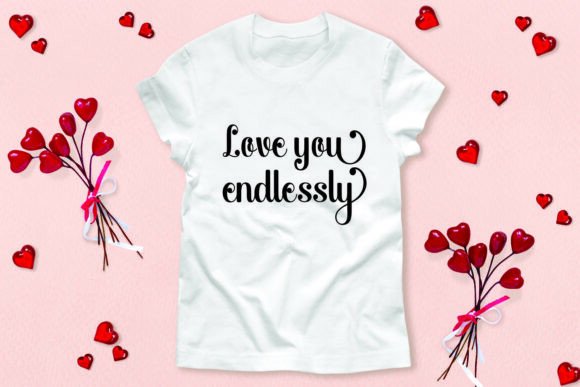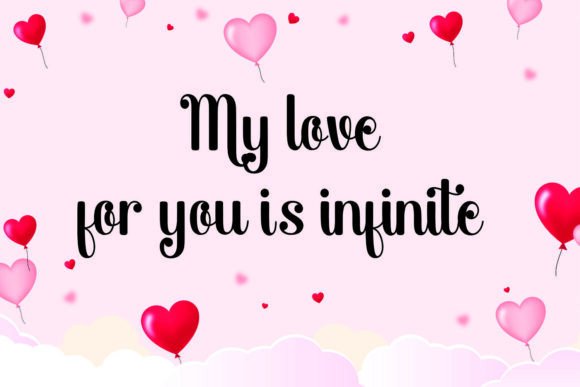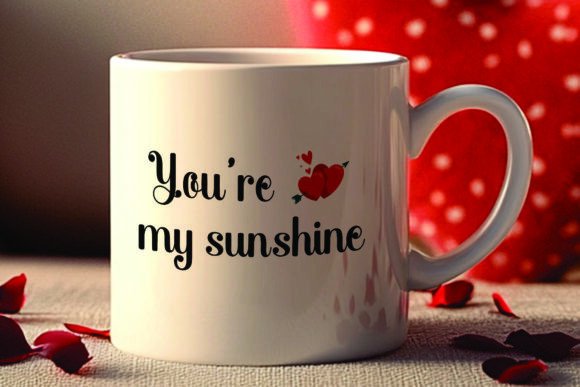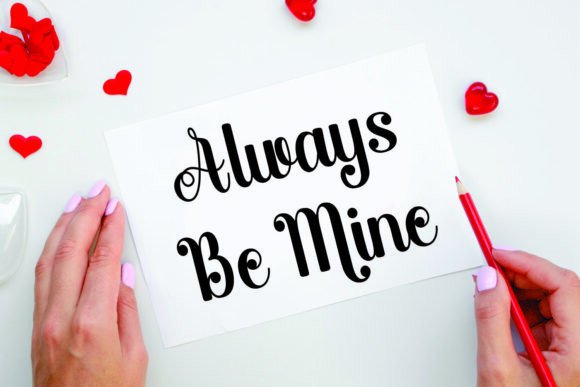
Introducing Happy Valentine Font: The Perfect Choice for Romantic and Elegant Designs
Are you looking for a font that can add a touch of warmth and elegance to your creative projects? Look no further than the “Happy Valentine” font, a charming script handwritten font designed to make your designs stand out. With its flowing strokes and romantic curves, this font is perfect for a wide range of themes, including Valentine’s Day, weddings, invitations, birthdays, Easter, and more.
A Font that Exudes Elegance and Sophistication
The “Happy Valentine” font is crafted with delicate beginning and ending swash tails, giving it a refined and artistic look. Each character is handcrafted with precision and attention to detail, making it ideal for designs that require a touch of sophistication. The font’s graceful, handwritten style makes it perfect for Cricut designs, embroidery, crafts, and seasonal celebrations such as summer, spring, autumn, Thanksgiving, and Christmas.
Customization Made Easy
One of the standout features of the “Happy Valentine” font is its wide selection of alternate swashes. This allows you to customize your lettering effortlessly, giving you the freedom to create unique and personalized designs. Whether you’re working on a heartfelt love letter, a stylish greeting card, or decorative signage, this font ensures a refined and artistic result.
Designed for versatility, the “Happy Valentine” font supports various design formats, including SVG. This makes it perfect for crafting, lettering, and designing a wide range of projects. Whether you’re a designer, crafter, or DIY enthusiast, this font is sure to become a staple in your collection.
The “Happy Valentine” font is perfect for a wide range of projects, including:
- Valentine’s Day designs: Create romantic and elegant designs for Valentine’s Day, including cards, invitations, and decorations.
- Wedding designs: Use the font to create beautiful wedding invitations, decorations, and other wedding-related designs.
- Birthday designs: Add a touch of elegance to birthday cards, invitations, and decorations.
- Easter designs: Create beautiful Easter-themed designs, including cards, invitations, and decorations.
- Cricut designs: Use the font to create custom Cricut projects, including vinyl decals, iron-on designs, and paper crafts.
- Embroidery designs: Use the font to create custom embroidery designs for clothing, accessories, and home decor.
Why Choose Happy Valentine Font?
So, why choose the “Happy Valentine” font for your next project? Here are just a few reasons:
- Elegant and sophisticated design: The font’s elegant and sophisticated design makes it perfect for a wide range of projects.
- Customization options: The font’s wide selection of alternate swashes gives you the freedom to customize your lettering effortlessly.
- Versatility: The font supports various design formats, including SVG, making it perfect for crafting, lettering, and designing a wide range of projects.
In conclusion, the “Happy Valentine” font is a charming script handwritten font that is perfect for designers and crafters looking to add a touch of warmth and elegance to their creative projects. With its flowing strokes and romantic curves, this font is perfect for a wide range of themes and projects. Its elegant and sophisticated design, customization options, and versatility make it a must-have font for any designer or crafter.